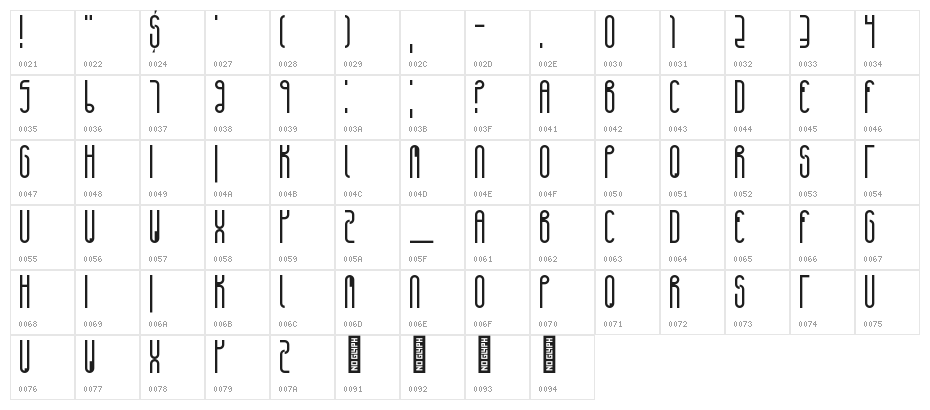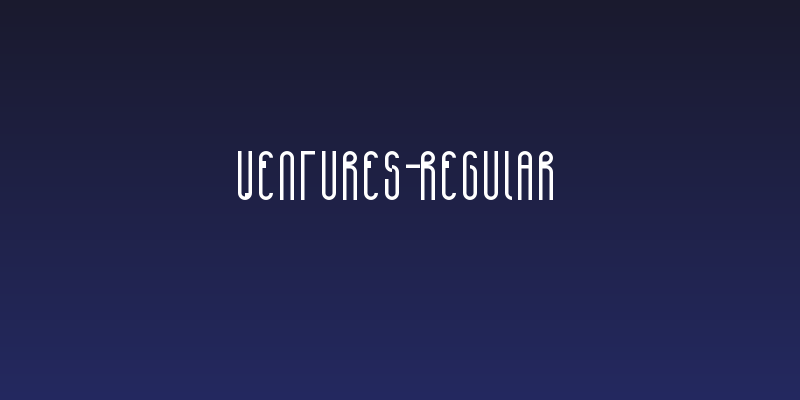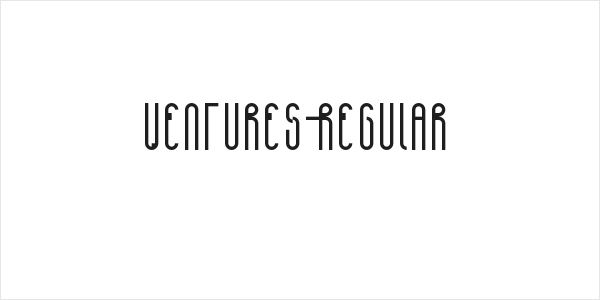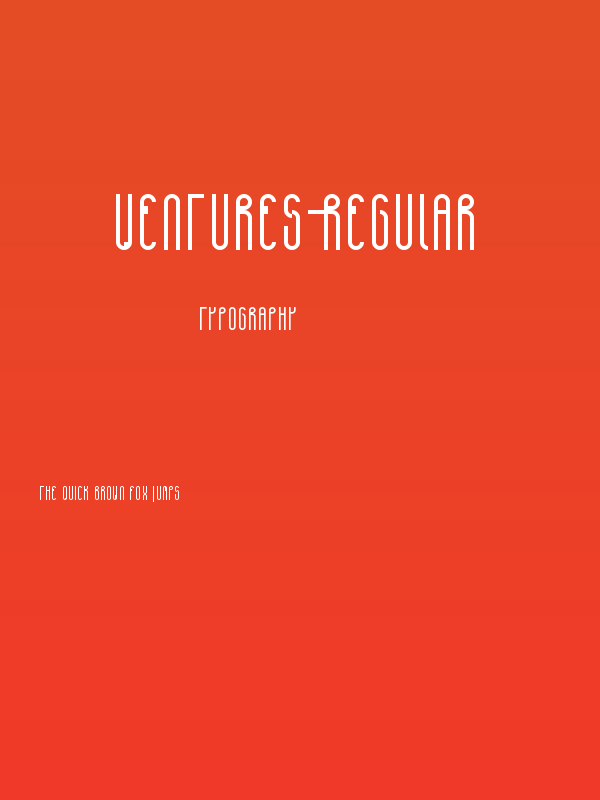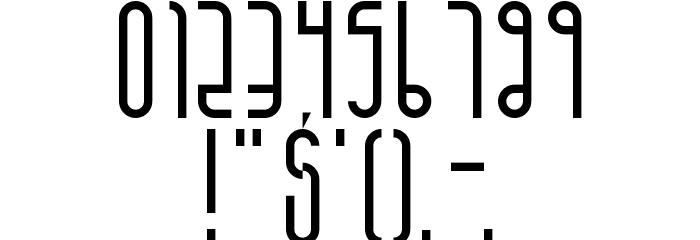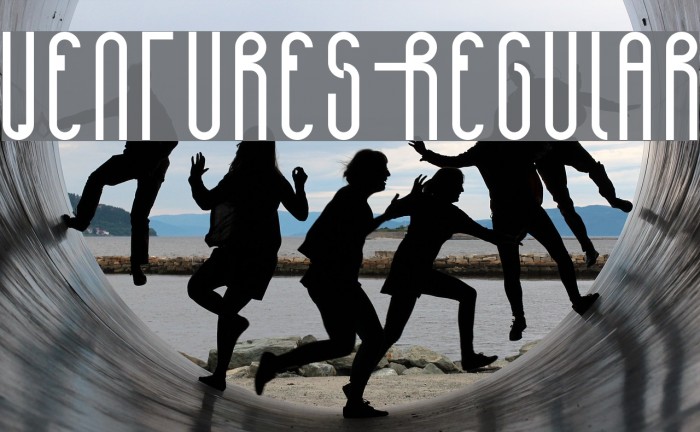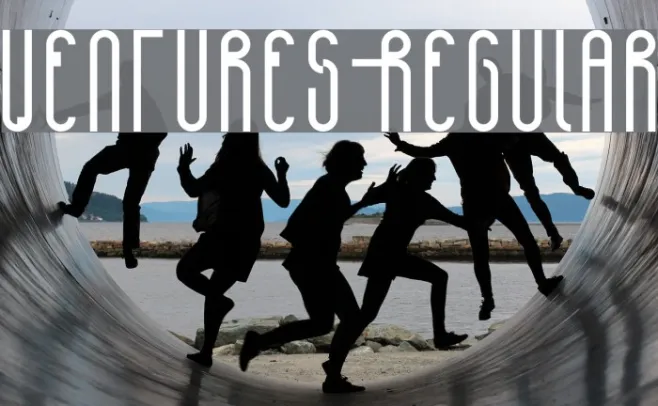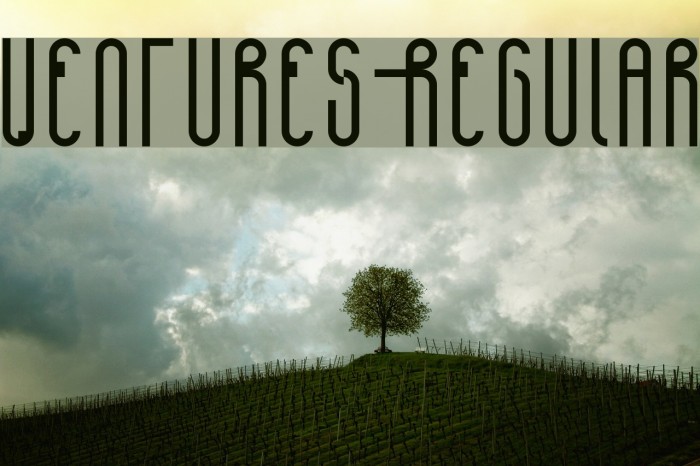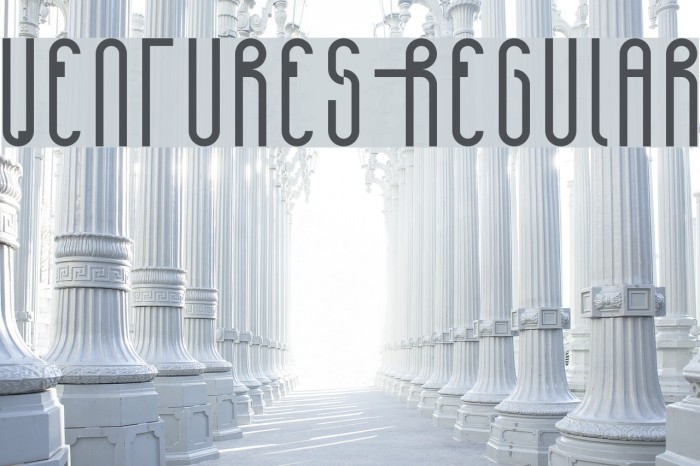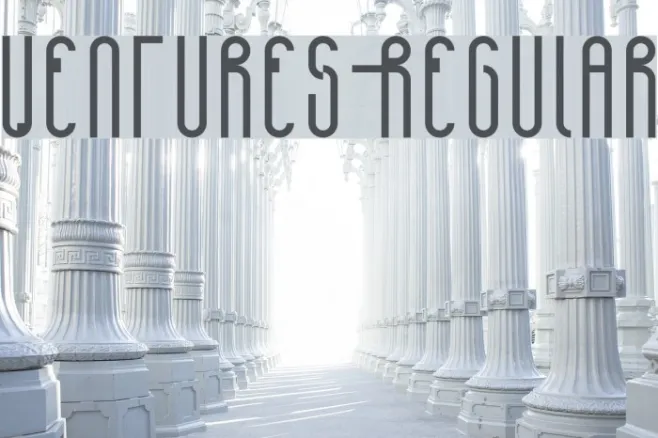
Ventures-Regular Font
Ventures-Regular Description
This font features a modern and sleek design with elongated, narrow characters that create a unique and stylish appearance. The vertical emphasis and clean lines give it a futuristic feel, while the rounded edges add a touch of softness. The uniform stroke width throughout the characters ensures a consistent look, making it suitable for various design applications. The uppercase and lowercase letters maintain a cohesive style, and the numerals are designed to match the overall aesthetic. Special characters are included, enhancing its versatility for creative projects.